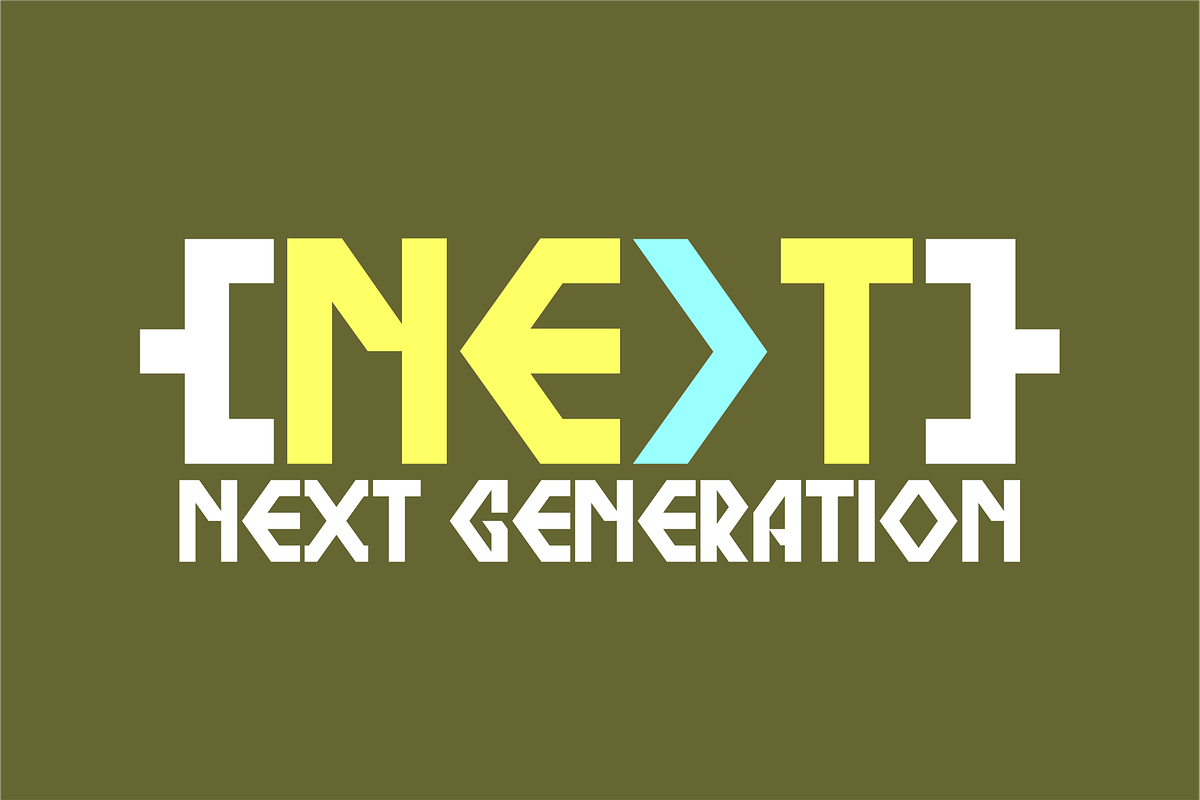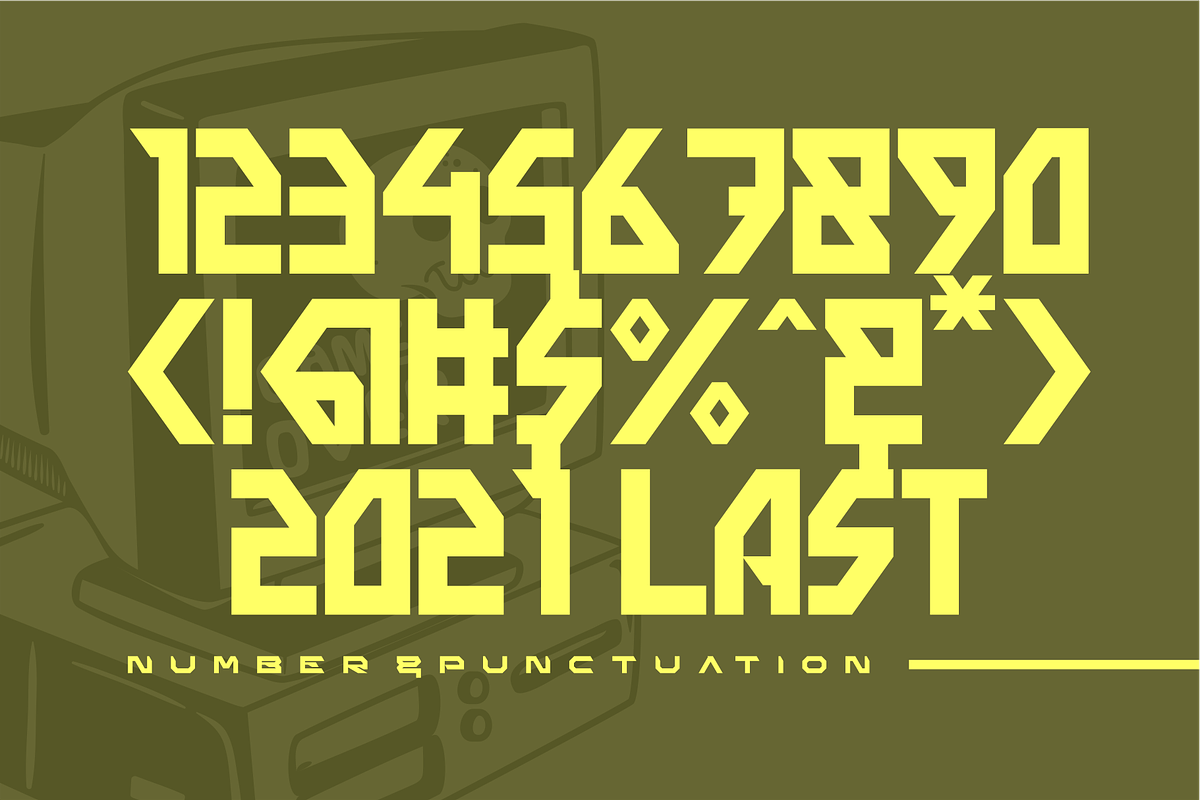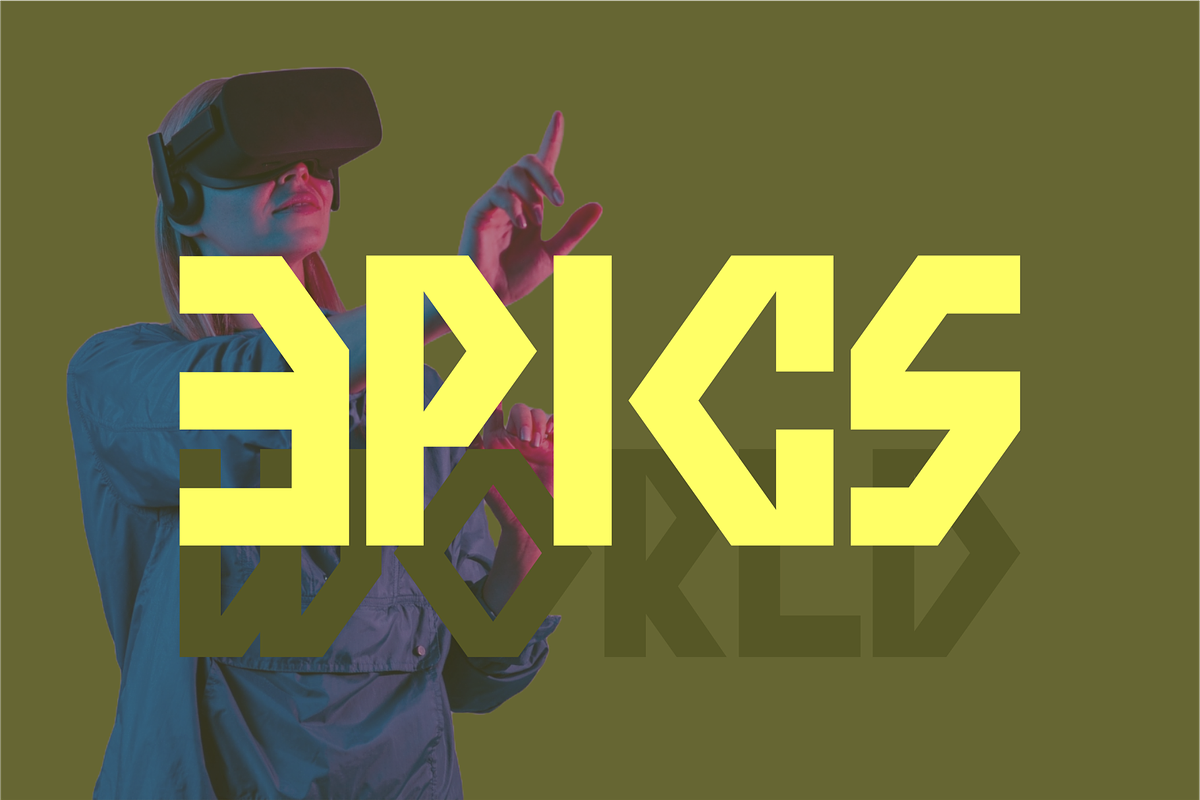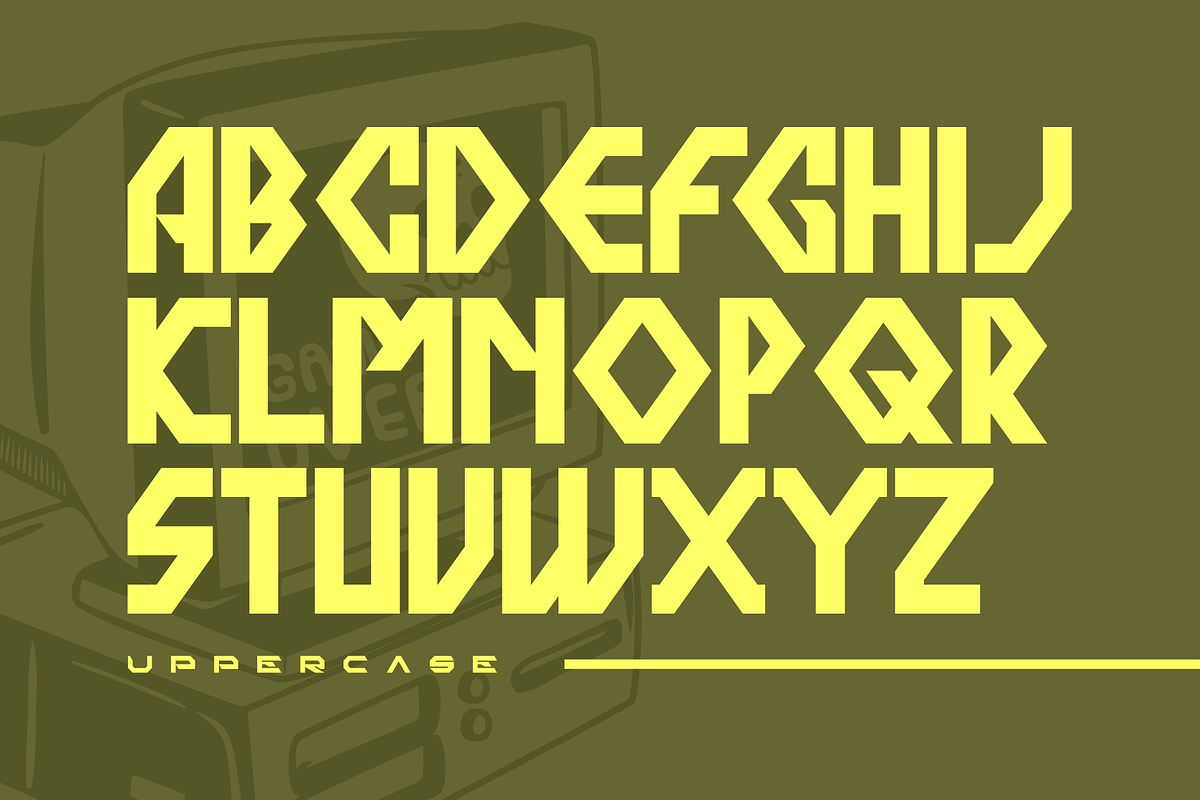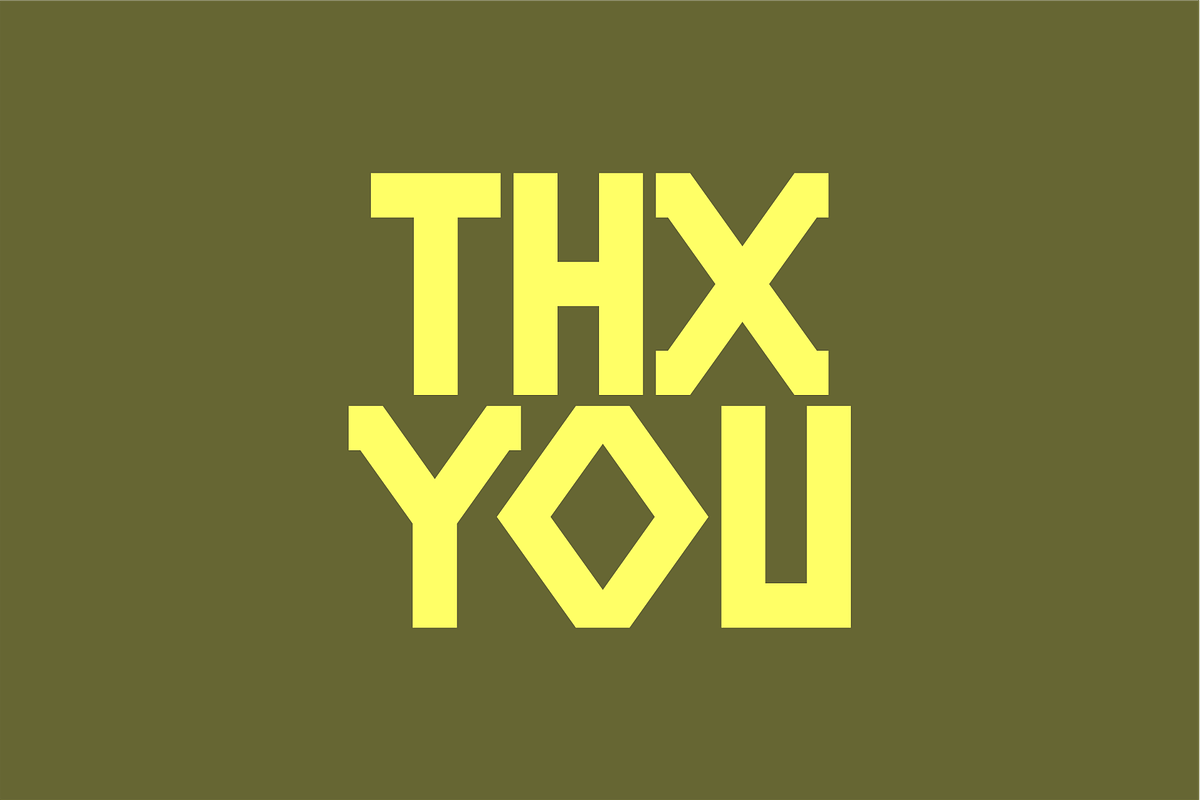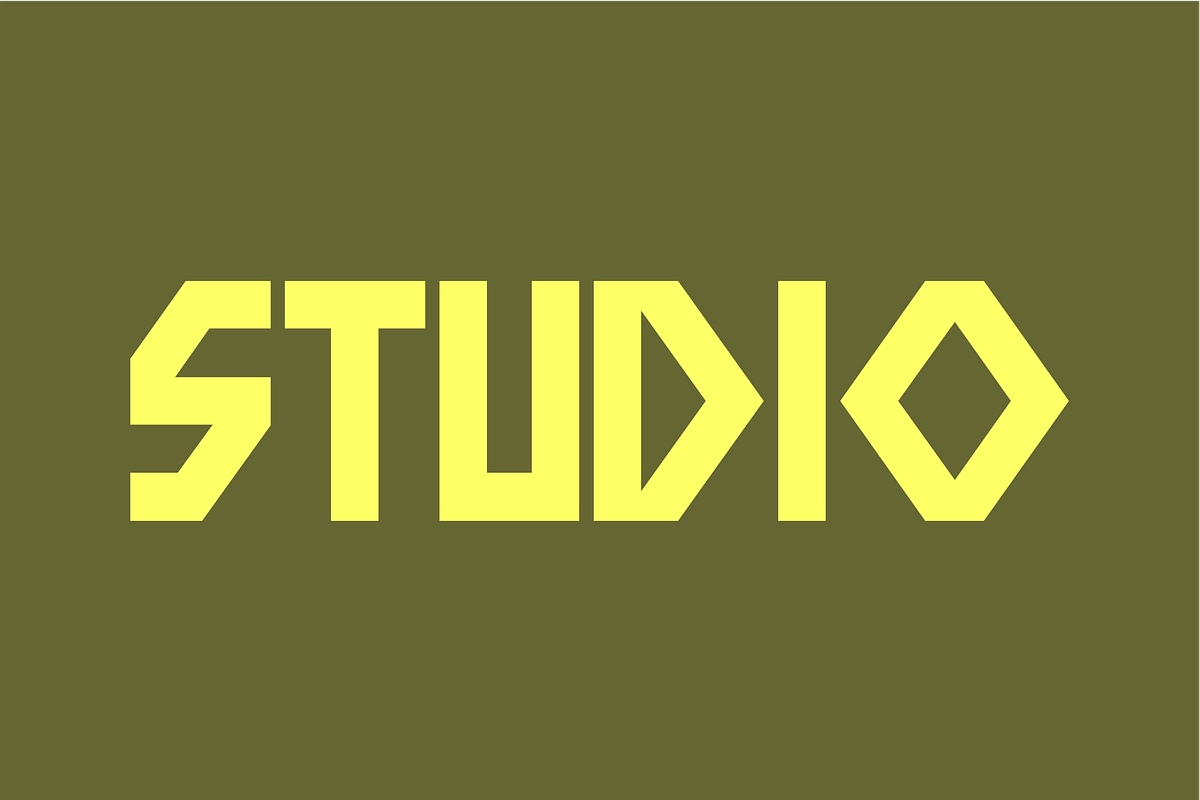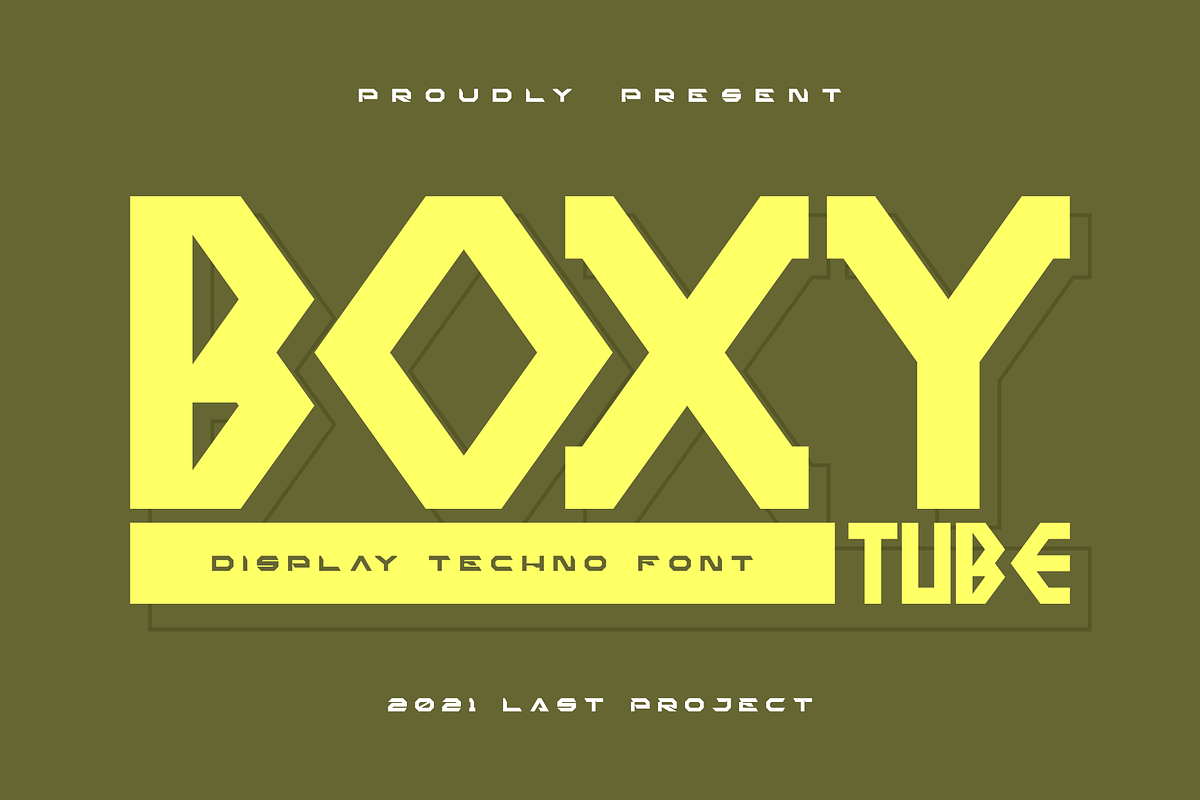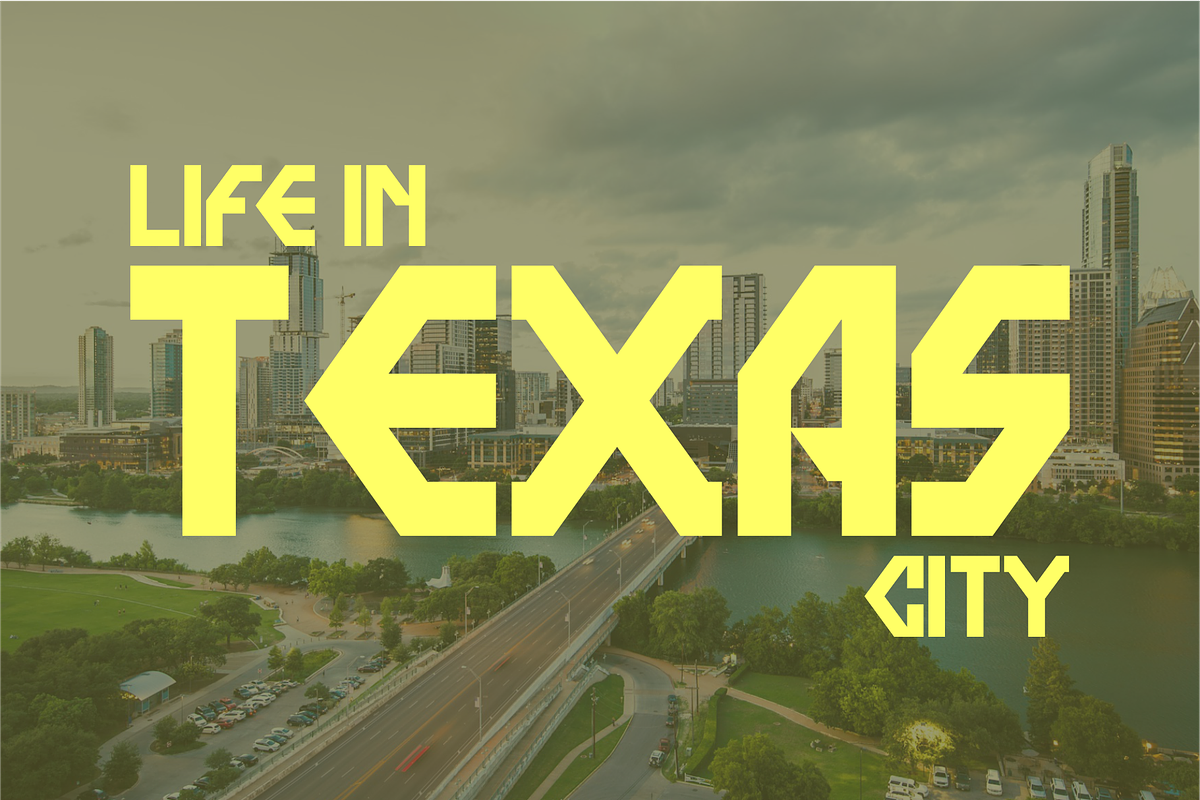
Boxy Tube
Boxy Tube is a bold, square-shaped display font that combines clean geometry with a strong visual impact. Each character is designed with rigid, rectangular forms and uniform proportions, making it ideal for futuristic, industrial, or tech-inspired designs.
The font’s structure is built on a grid-like foundation, giving it a sense of mechanical precision and digital clarity. Despite its boxy construction, “Boxy Tube” maintains excellent legibility, making it suitable for everything from headlines and logos to posters and UI displays.
Perfect for projects that demand a modern, structured aesthetic, “Boxy Tube” stands out with its minimalistic yet powerful presence. Whether you’re designing for branding, sci-fi themes, tech interfaces, or editorial layouts, this font delivers a sharp, contemporary edge.